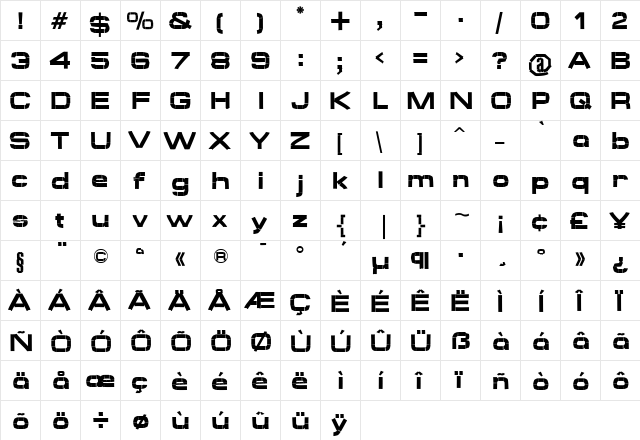
Red Tape Extended Regular
Design Context for Red Tape Extended Typeface
Red Tape Extended is a composed and adaptable typeface that performs quietly and consistently across a wide range of design contexts.